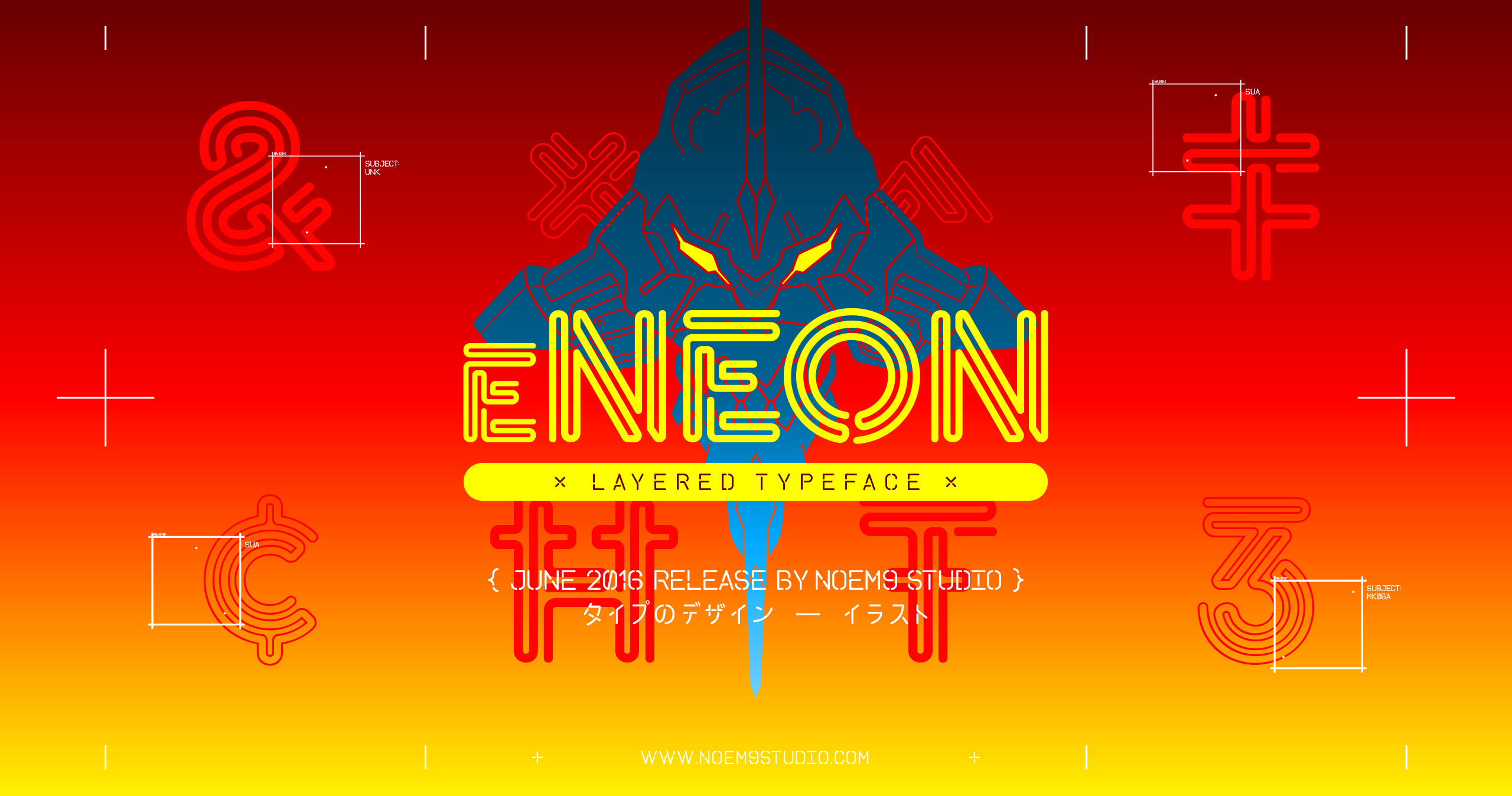
eNeon — Layered Typeface
eNeon is a layered typeface with 3 styles that you can stack together to create as many different comps as you want. Inspired by neon signs and those tube shapes filled with gas that brighten the streets of so many cities. Smooth curves and stroke joints that simulate that ancient art of glass-blowing.